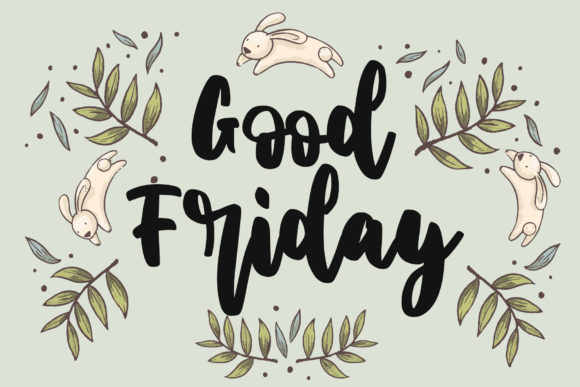
Unleash the art of elegance with Good Friday, a script font family that dances across your designs with its captivating charm. This collection of flowing, paintbrushed handwritten fonts exudes a captivating beauty that will breathe life into your creative endeavors. As a PUA-encoded font, Good Friday grants you seamless access to a world of glyphs and swashes, opening up endless possibilities for personalization.
Step into a realm of creativity where your words become visual masterpieces, where every letter dances with grace and fluidity. Good Friday's enchanting touch will transform your designs, whether it's an enchanting logo that captivates your audience or a heartfelt invitation that beckons with warmth. Its versatility extends to both formal and informal settings, making it an ideal choice for everything from professional resumes to playful personal projects.
With Good Friday by your side, your designs will radiate a sense of sophistication and artistry. Prepare to be captivated by its ability to infuse charm into your projects, leaving a lasting impression that speaks volumes. Let your creativity soar as you witness the transformation of your designs into breathtaking works of art.